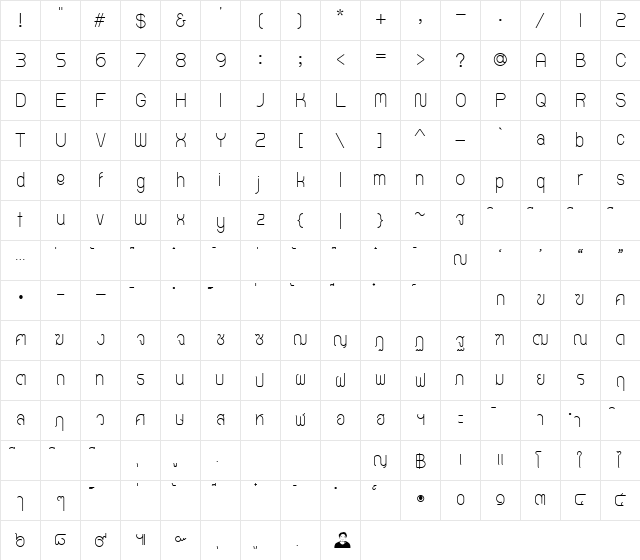
Ti_Circular Regular
| Foundry | Warit Chaiyakul |
| Designer | Warit Chaiyakul |
Design Context for Ti_Circular Typeface
Ti_Circular takes a measured approach to typography — its balanced proportions and neutral character make it a reliable workhorse for both digital and print work.